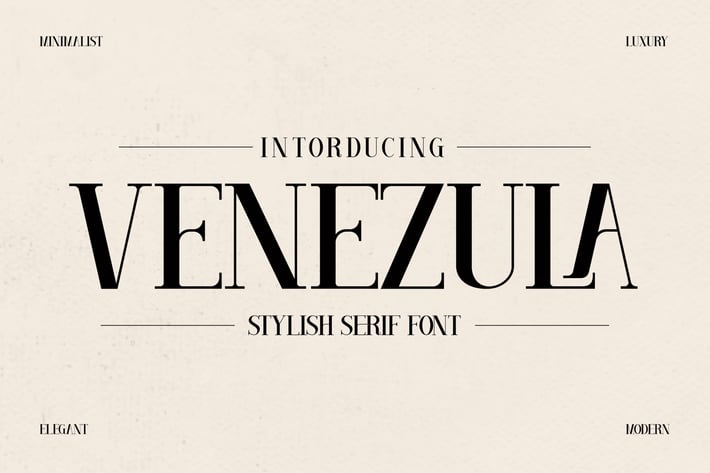
Venezula Stylish Serif Font
Venezula is a stylish serif font designed with modern luxury in mind, combining sharp edges with graceful curves to create a bold yet elegant aesthetic. Its contemporary style makes it perfect for projects that demand sophistication, whether for branding or editorial use.
Sleek and modern serif font
Bold letterforms with elegant contrast
Ideal for both classic and contemporary designs
Clean lines and sharp edges for premium appeal
Luxury branding & design
Editorial and magazine layouts
High-end marketing campaigns
Posters, billboards, and headlines
Modern fashion and beauty visuals
Where boldness meets elegance — a versatile serif designed to elevate your designs.*